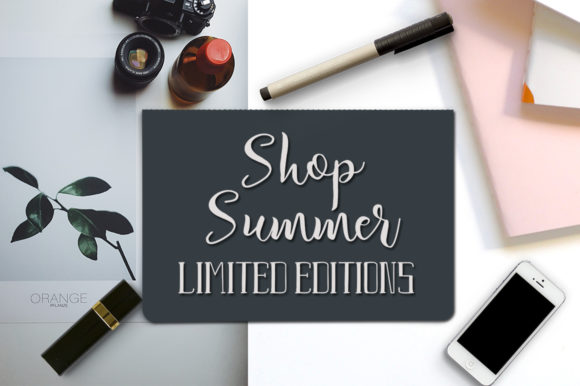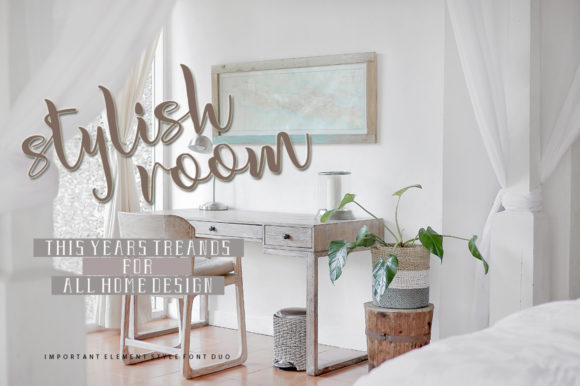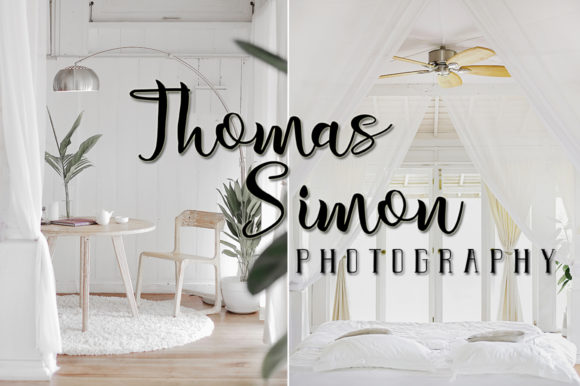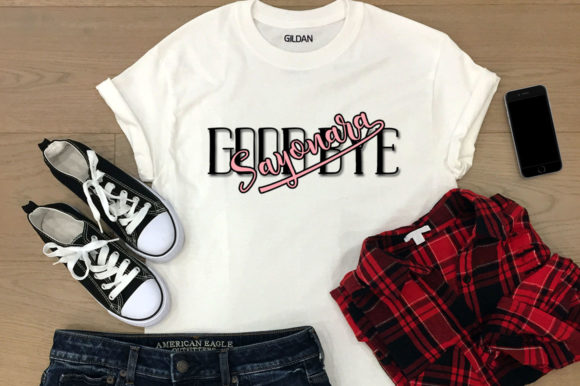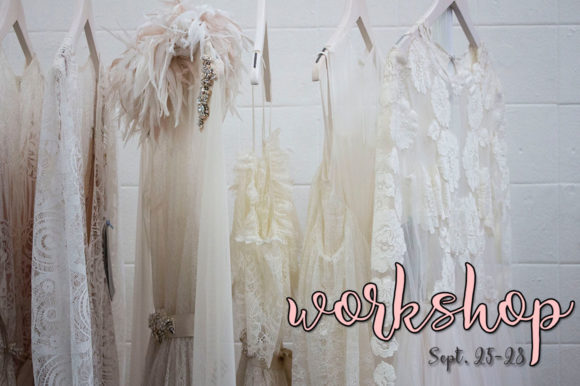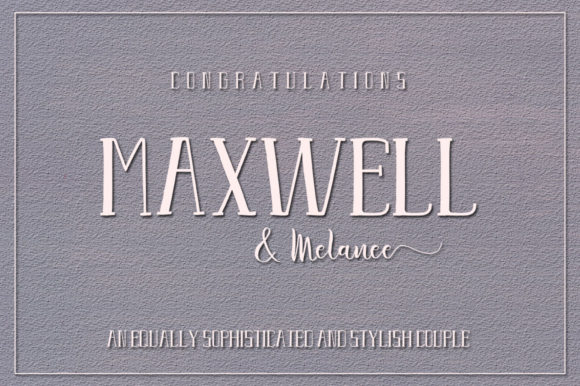
Important Element Font – Free Download
Introduction to Important Element Font
The Important Element is a classic thin font with an italic style.
It includes several modern swirls that can make your work look elegant, sweet and perfect It’s suitable for product packaging, mugs, quotes, posters, shopping bags, logos, t-shirts, book covers, business cards, invitation cards, greeting cards, and all your other beautiful projects.
Key Features of Important Element Font
Why Choose Important Element Font?
Important Element Font offers exceptional quality and versatility, making it a valuable addition to your design toolkit. Whether you’re creating for personal projects or commercial use, Important Element Font delivers professional results.